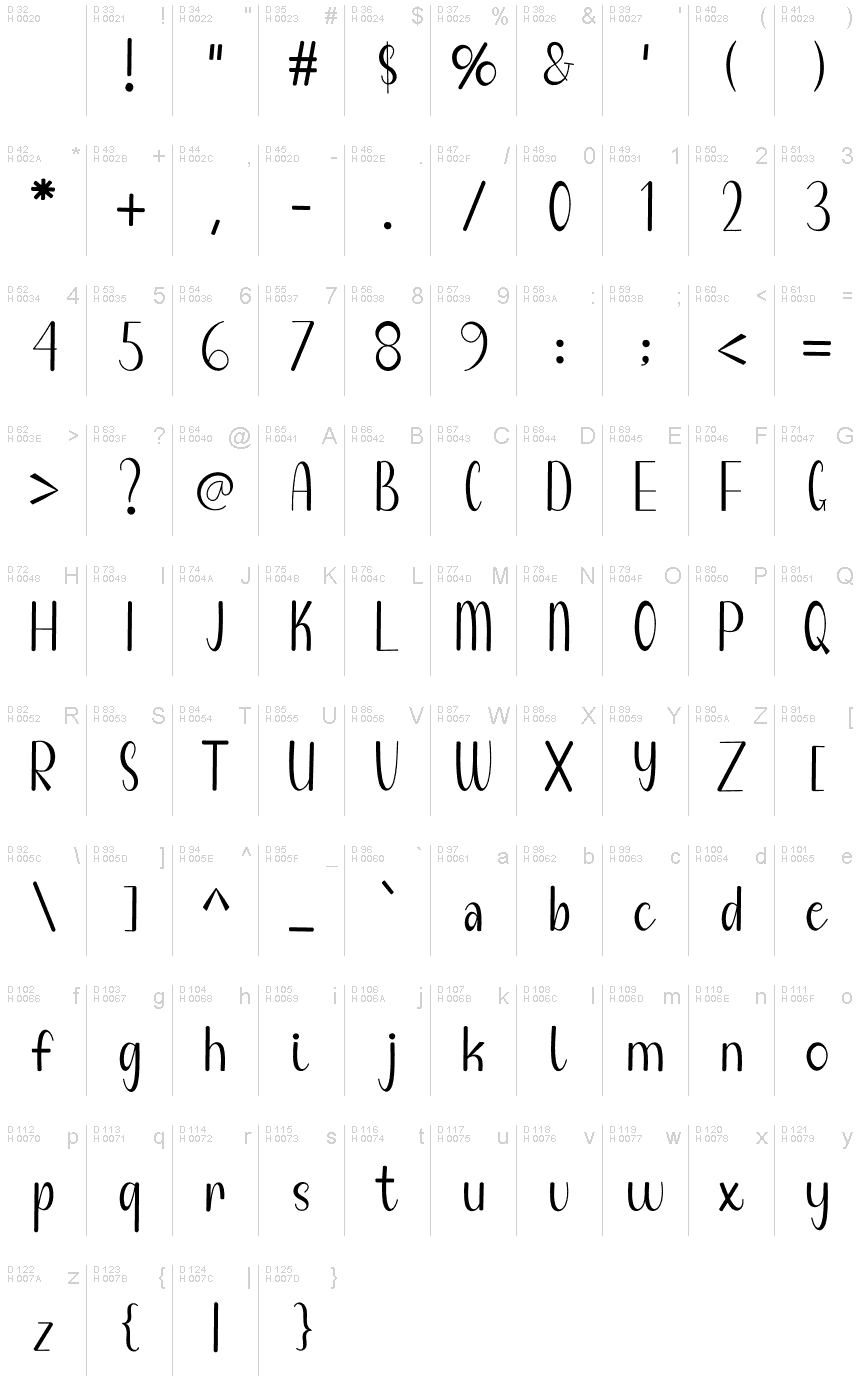
DESIGNER VINTAGE
Designer Vintage, handcrafted by Belina Studio, is a semi-light handwritten font that captures the essence of timeless design. With its condensed width, this font is perfect for creative projects that need a touch of vintage charm. From wedding invitations to branding materials, Designer Vintage adds an elegant and personal touch to any project. Its unique style and attention to detail make it a versatile choice for designers looking to elevate their work. Whether you're creating packaging or web graphics, Designer Vintage is the perfect semi-light font for your next project!
the latest style letters are perfect for wall displays, wedding invitations, social media post logos, advertisements, product packaging, product designs, labels, photography, watermarks, invitations, stationery, and any project that requires taste handwriting.